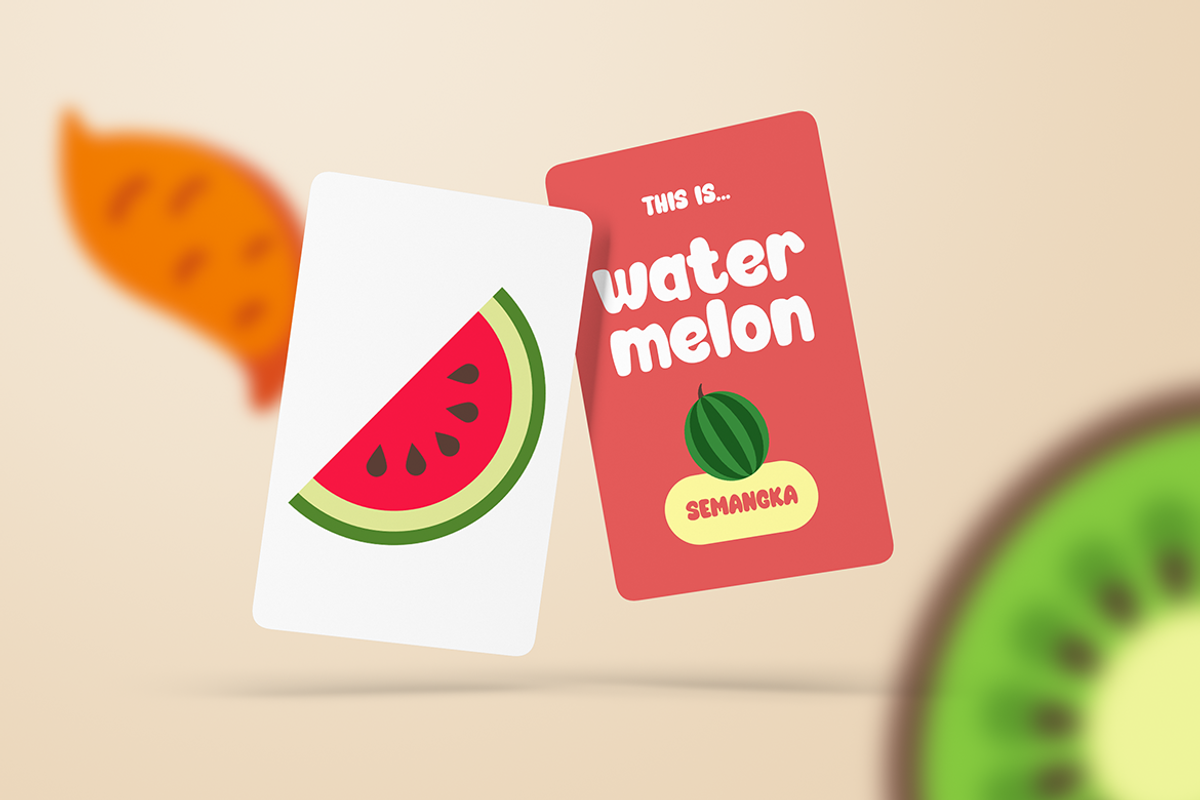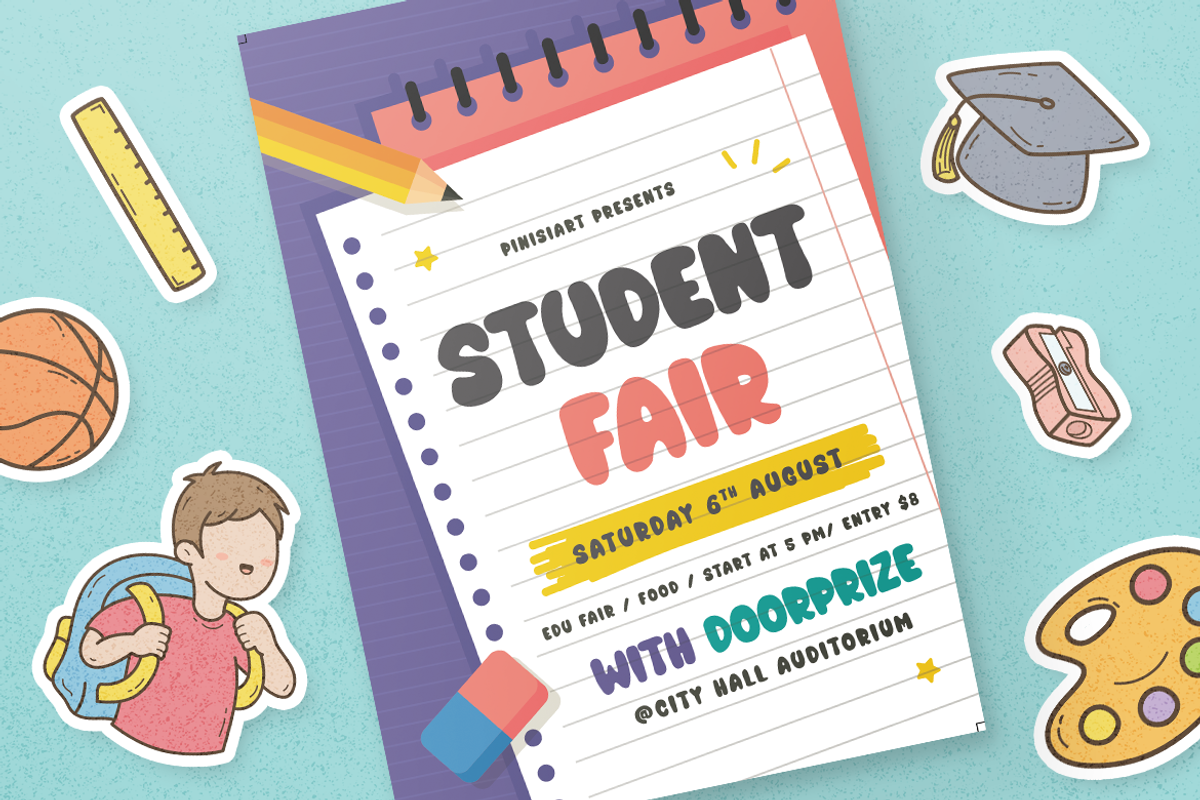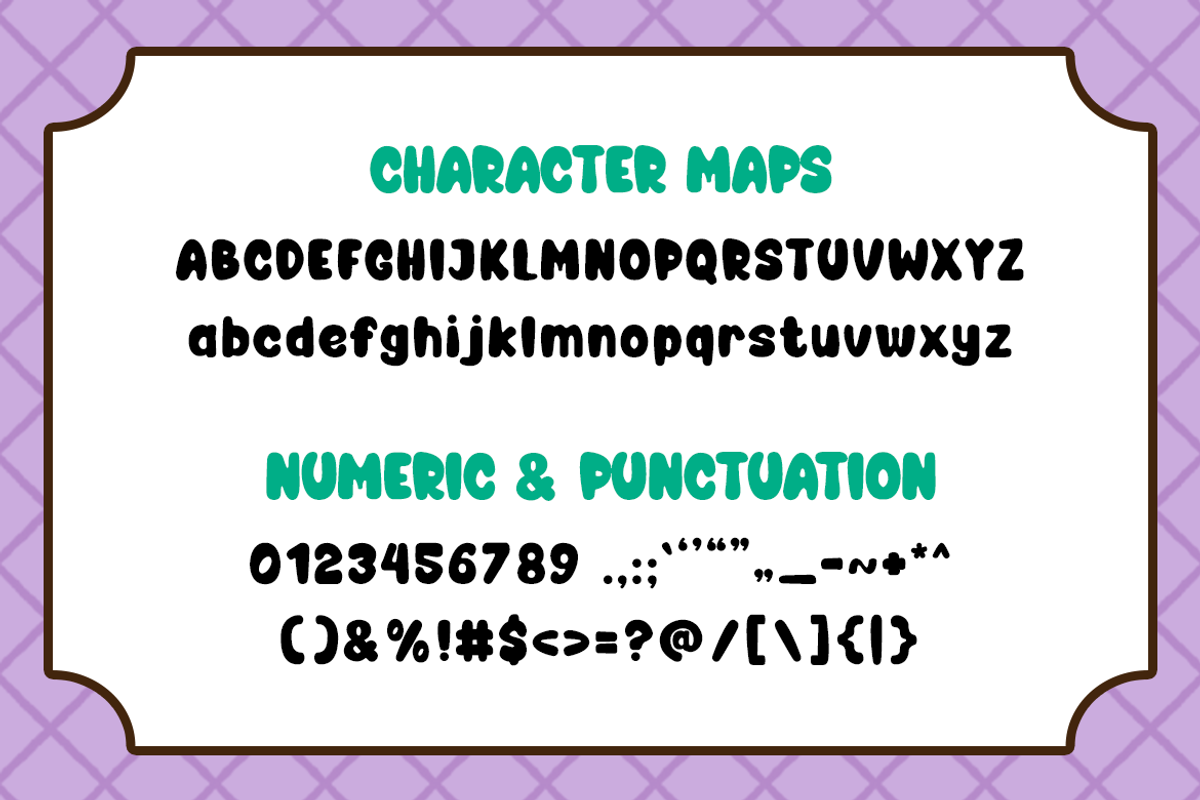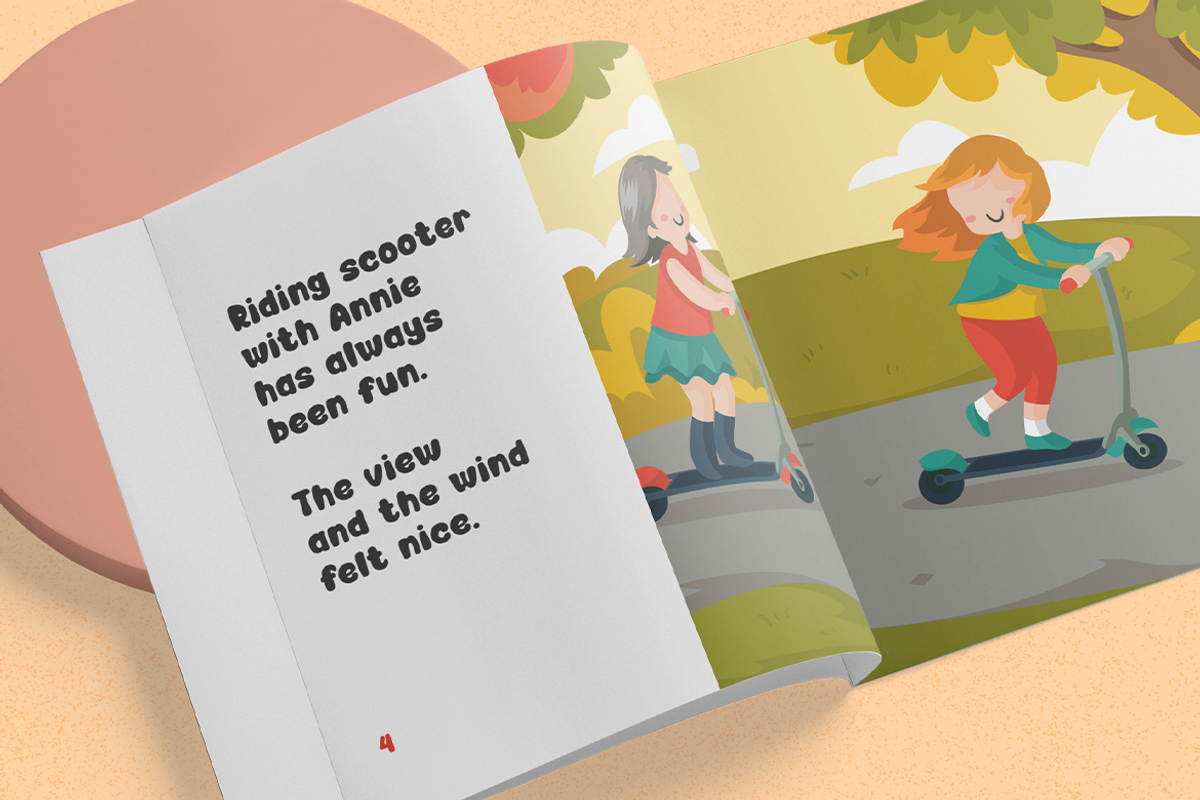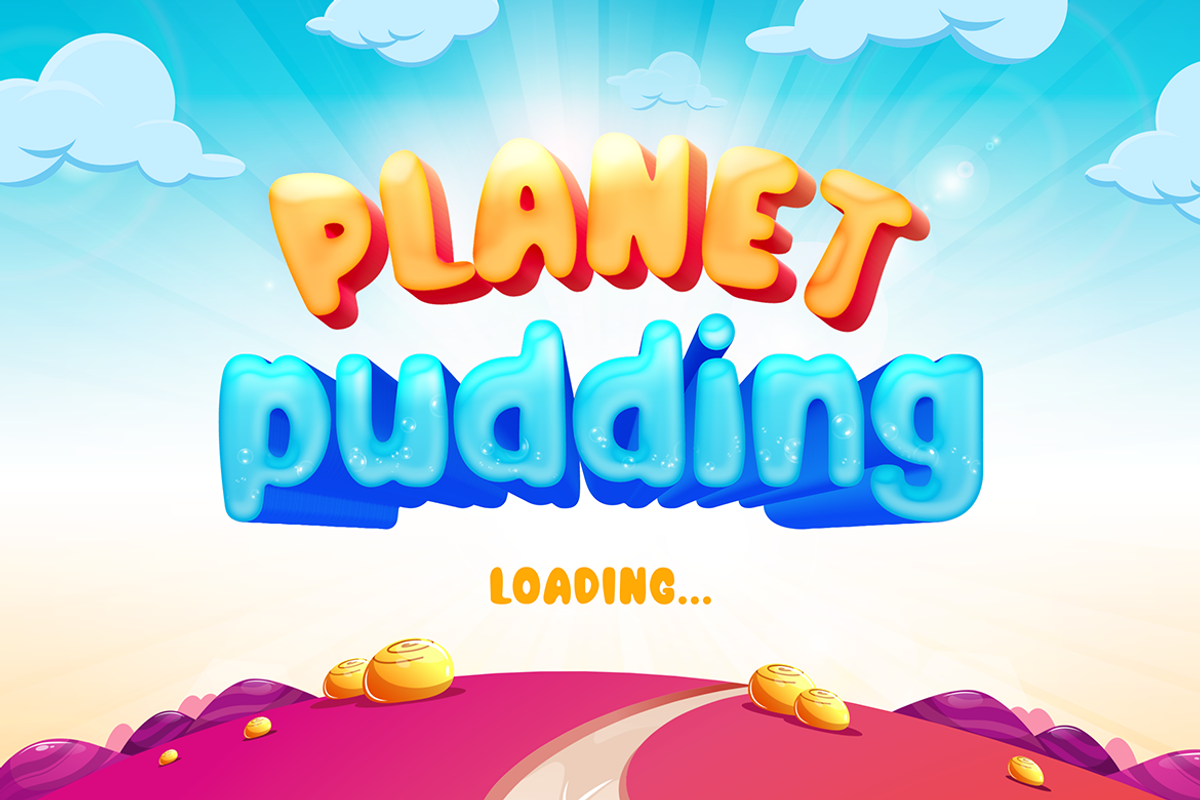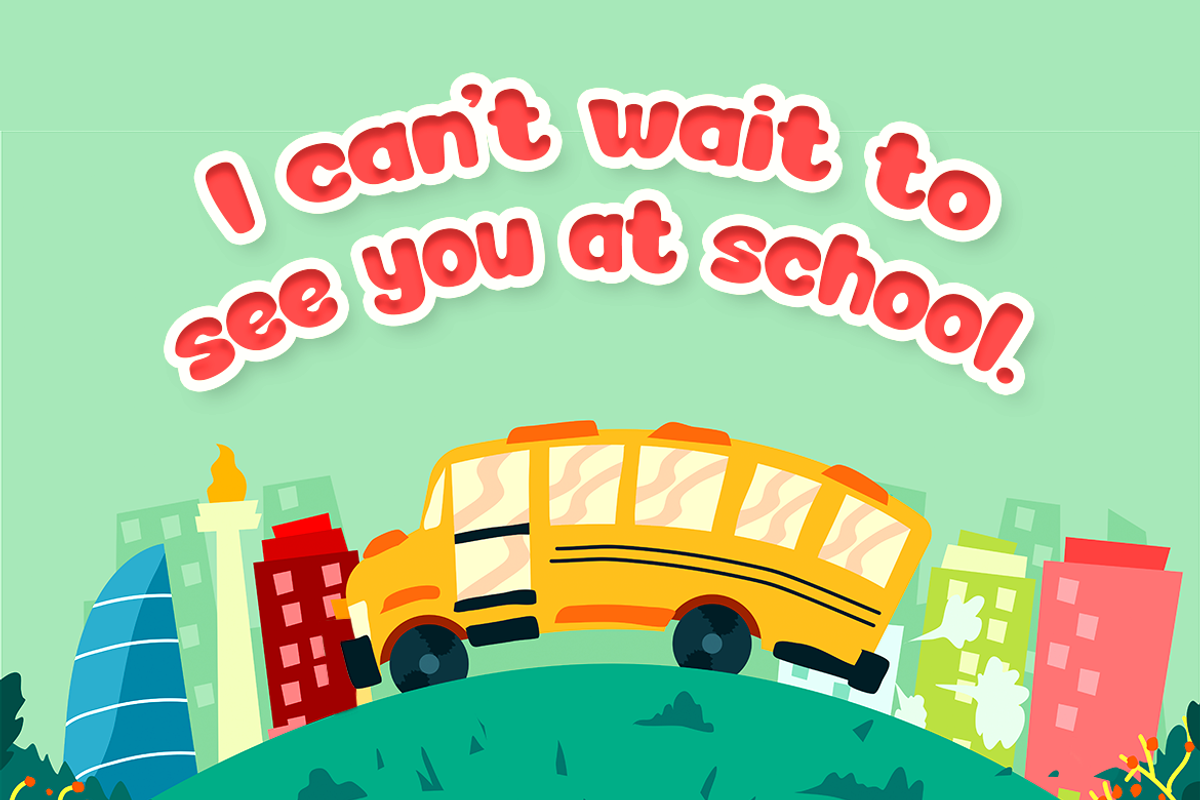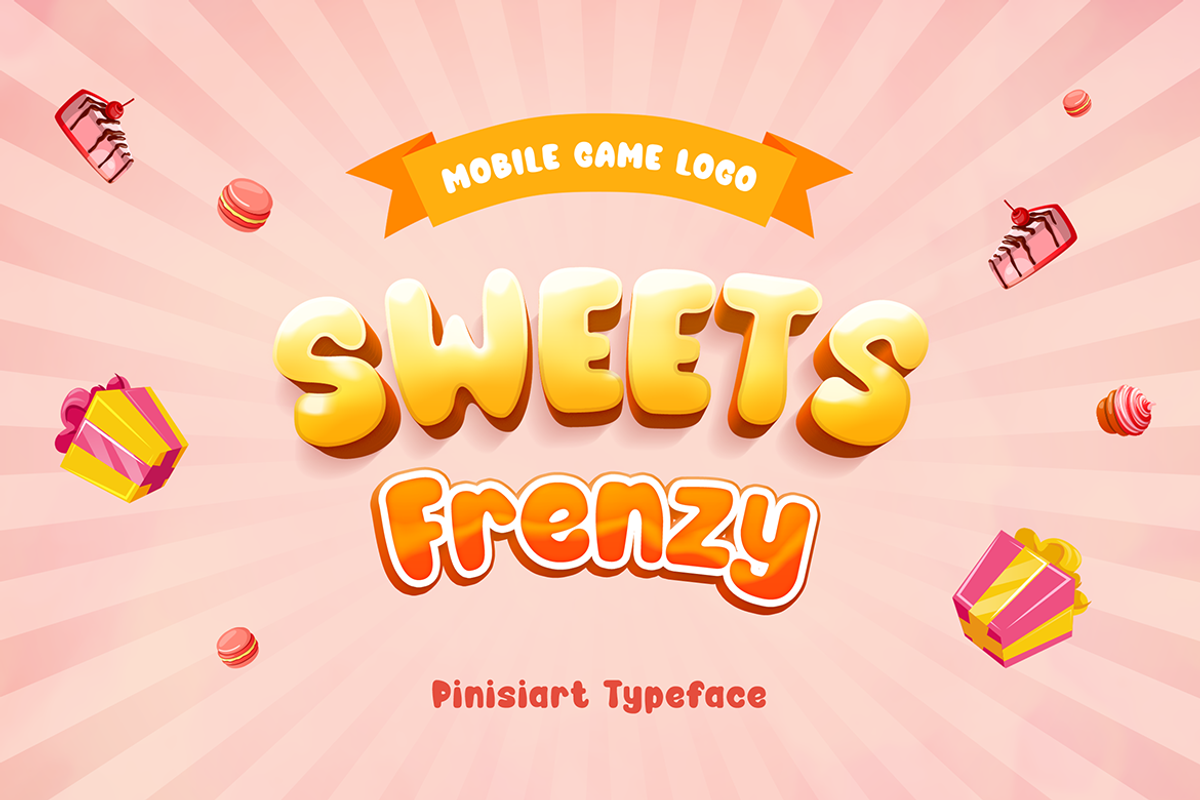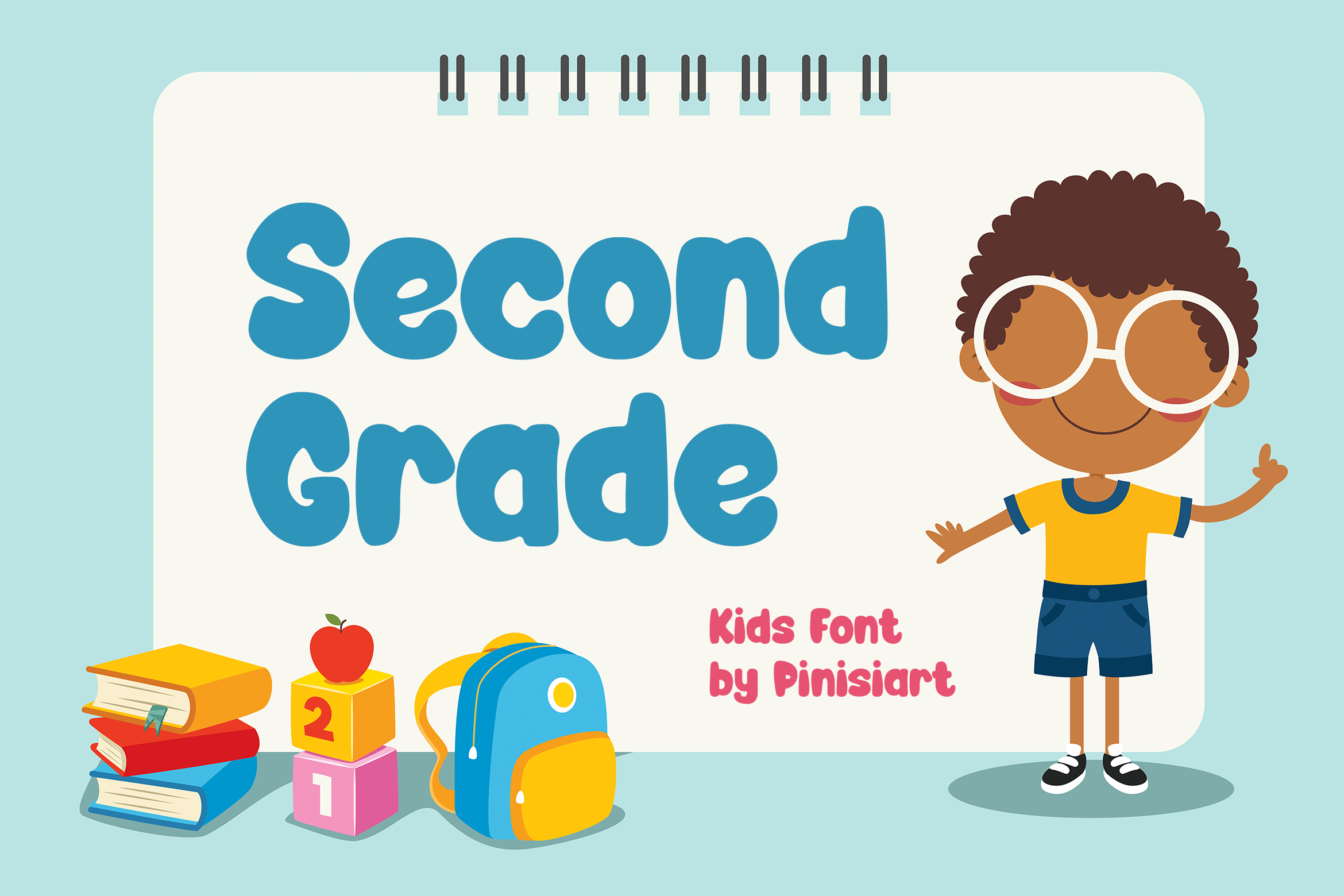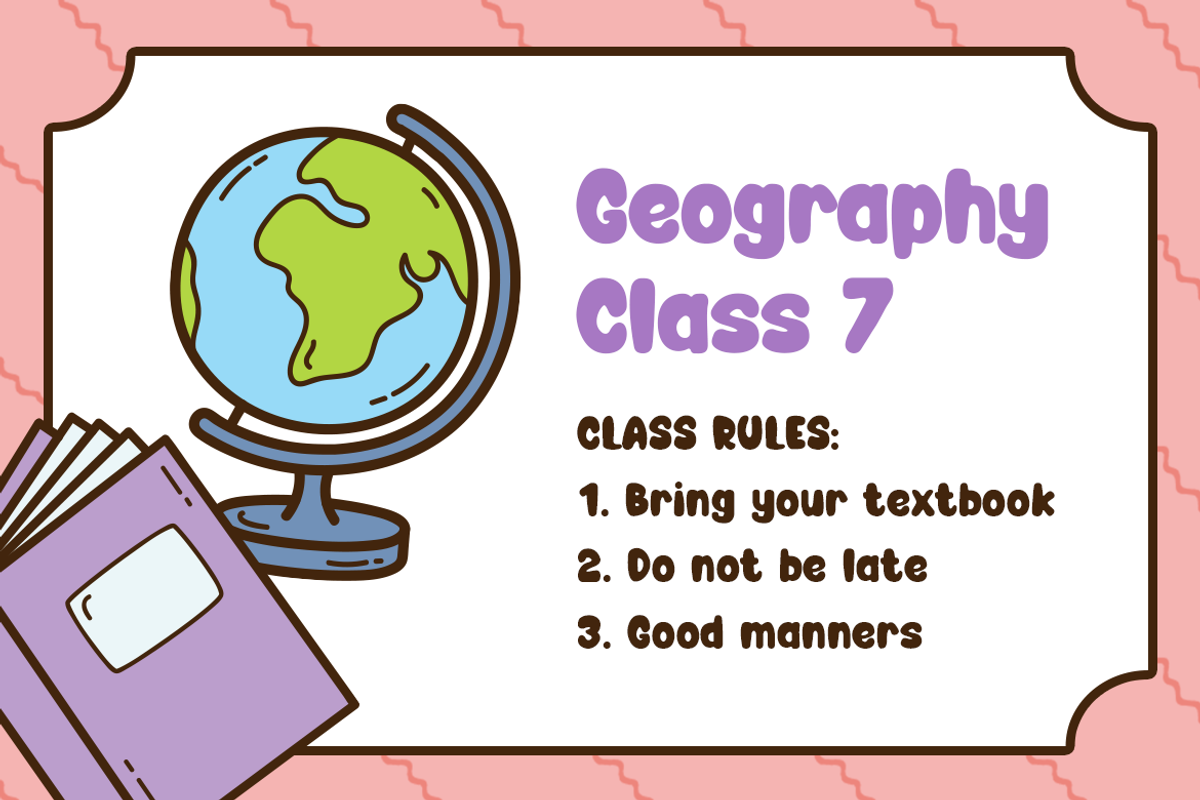
Second Grade – Kids Font
Cute and friendly, with a playful attitude. That’s what Second Grade will bring to your current project. Just like a second grader will do.
Suit perfectly for imaginary children’s books market, online games, stationery, school supplies font, poster, movie title, youtube covers, youtube thumbnails, social media page covers, and so on…